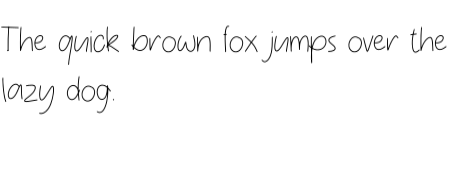
Fisionet Font: A Charming Handwritten Typeface
Fisionet Font is a delightful handwritten typeface that embodies the essence of cuteness with its whimsical strokes and endearing details. This charming font exudes playfulness and warmth, making it a perfect choice for projects that seek to convey a sense of approachability and friendliness.
The Unique Personality of Fisionet
The letters in Fisionet dance with a light and carefree rhythm, reminiscent of handwritten notes passed between dear friends. Fisionet’s unique personality shines through in every curve and swirl, adding a touch of innocence and charm to any design. This font is perfect for designers who want to add a personal touch to their work and create a lasting impression on their audience.
Characteristics of Fisionet Font
Fisionet Font has several characteristics that make it stand out from other handwritten typefaces. Some of its notable features include:
- Whimsical strokes: Fisionet’s strokes are playful and whimsical, giving the font a carefree and lively feel.
- Endearing details: The font is full of endearing details, such as subtle imperfections and irregularities, that make it feel more human and approachable.
- Light and carefree rhythm: The letters in Fisionet dance with a light and carefree rhythm, creating a sense of movement and energy.
- Innocence and charm: Fisionet’s unique personality shines through in every curve and swirl, adding a touch of innocence and charm to any design.
Uses of Fisionet Font
Fisionet Font is a versatile typeface that can be used in a variety of design projects, including:
- Branding and logos: Fisionet’s playful and charming personality makes it a great choice for branding and logo design.
- Packaging design: The font’s whimsical strokes and endearing details make it perfect for packaging design, especially for products that appeal to a younger audience.
- Advertising and marketing: Fisionet’s unique personality shines through in advertising and marketing materials, making it a great choice for campaigns that want to convey a sense of approachability and friendliness.
- Digital design: The font is also suitable for digital design, including website headers, social media graphics, and mobile app interfaces.
Benefits of Using Fisionet Font
Using Fisionet Font in your design projects offers several benefits, including:
- Unique personality: Fisionet’s unique personality shines through in every curve and swirl, adding a touch of innocence and charm to any design.
- Approachability and friendliness: The font’s playful and charming personality makes it a great choice for projects that seek to convey a sense of approachability and friendliness.
- Versatility: Fisionet Font is a versatile typeface that can be used in a variety of design projects.
- Emotional connection: The font’s whimsical strokes and endearing details can help create an emotional connection with your audience.
How to Use Fisionet Font Effectively
To use Fisionet Font effectively in your design projects, follow these tips:
- Pair with neutral fonts: Pair Fisionet Font with neutral fonts to create contrast and make your design more readable.
- Use in headlines and titles: Use Fisionet Font in headlines and titles to add a touch of personality and whimsy to your design.
- Experiment with colors: Experiment with different colors to find the perfect combination that complements Fisionet Font.
- Keep it simple: Keep your design simple and clean to let Fisionet Font shine.
Fisionet Font is a charming handwritten typeface that embodies the essence of cuteness with its whimsical strokes and endearing details. Its unique personality shines through in every curve and swirl, adding a touch of innocence and charm to any design. With its versatility, approachability, and friendliness, Fisionet Font is a great choice for designers who want to add a personal touch to their work and create a lasting impression on their audience.
- What is Fisionet Font?: Fisionet Font is a charming handwritten typeface that embodies the essence of cuteness with its whimsical strokes and endearing details.
- What are the characteristics of Fisionet Font?: Fisionet Font has several characteristics, including whimsical strokes, endearing details, light and carefree rhythm, and innocence and charm.
- What are the uses of Fisionet Font?: Fisionet Font can be used in a variety of design projects, including branding and logos, packaging design, advertising and marketing, and digital design.
- What are the benefits of using Fisionet Font?: Using Fisionet Font offers several benefits, including unique personality, approachability and friendliness, versatility, and emotional connection.